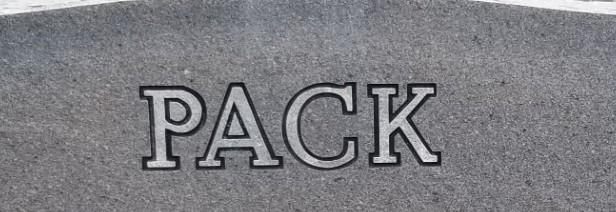
Good afternoon, this looks like it is a poorly drawn digital version of the Broad Double Outline alphabet. There were at least two different plastic stencil press versions of it available, and I have a digital version in the font shop that is based on the PMD Cutrite alphabet, here: https://www.monumentletteringcenter.com/product/mlc-cutrite-broad-double-outline/